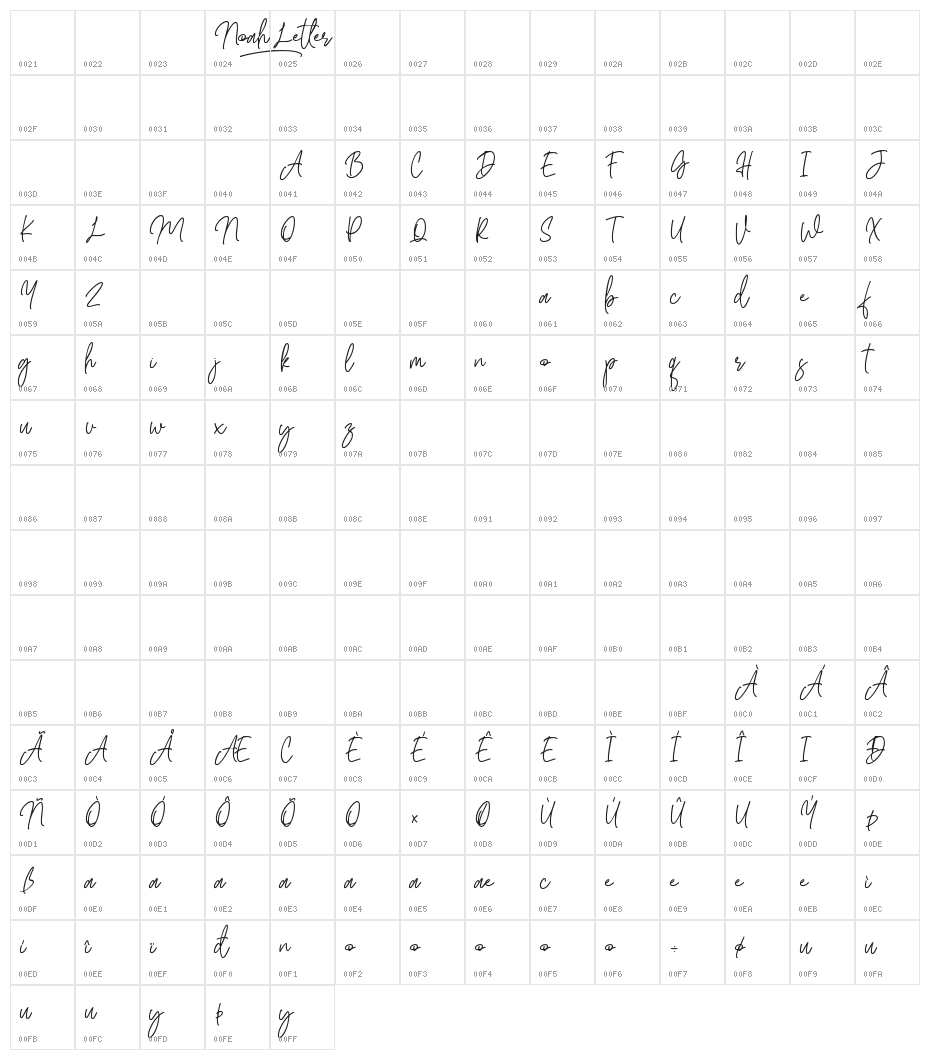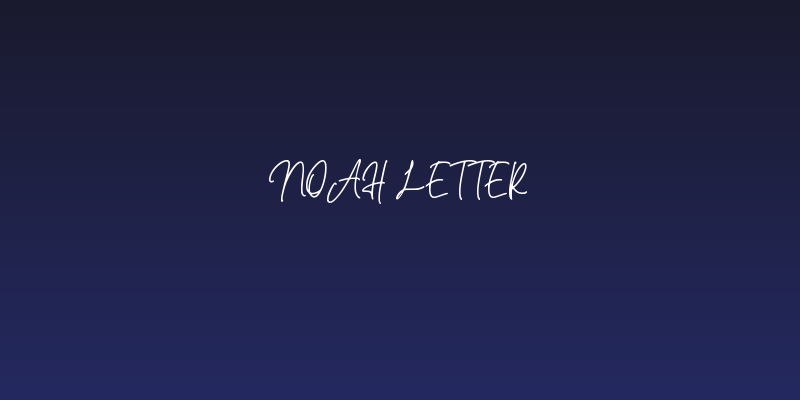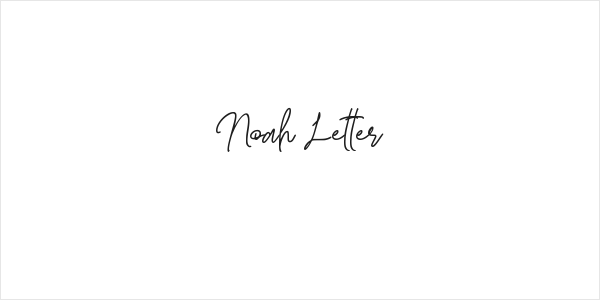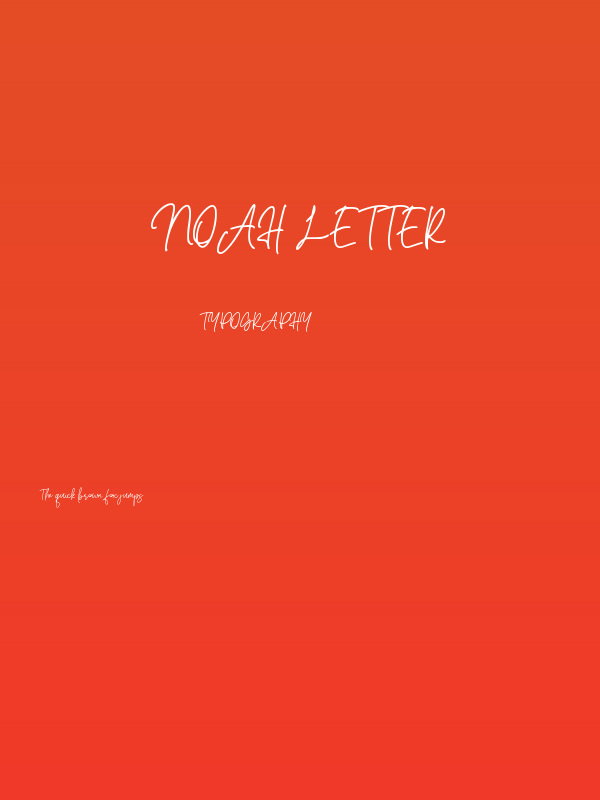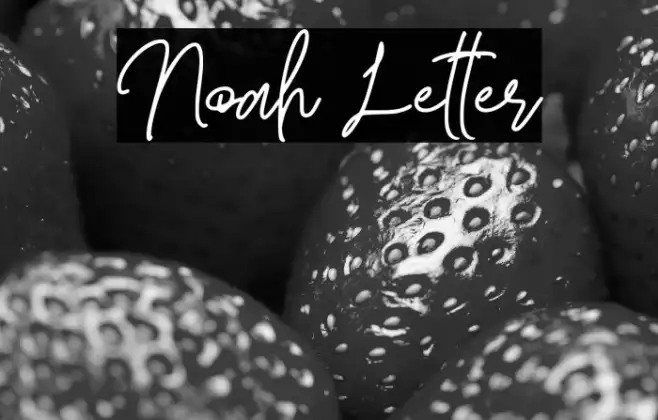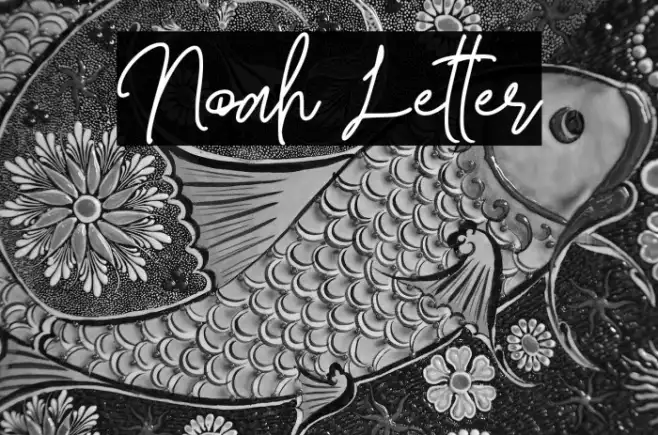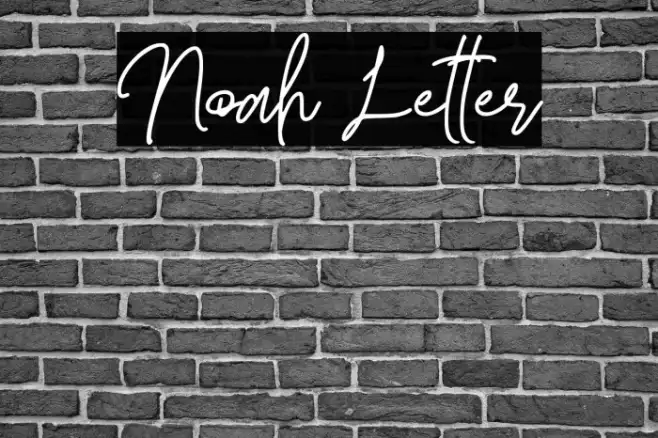
Noah Letter Font
Noah Letter Description
This font exudes a charming and elegant handwritten style, characterized by its fluid and continuous strokes that mimic natural handwriting. The letters are connected in a cursive manner, providing a sense of flow and movement. The uppercase letters are slightly more elaborate, with graceful loops and swirls, while the lowercase letters maintain a more straightforward yet stylish appearance. The font's overall aesthetic is both sophisticated and approachable, making it suitable for a variety of design contexts. Its legibility is enhanced by the consistent stroke width, which balances the decorative elements with readability.
| Overall Style | Elegant, Handwritten |
| Proposed Projects | Ideal for wedding invitations, greeting cards, personal branding, and elegant logo designs. |